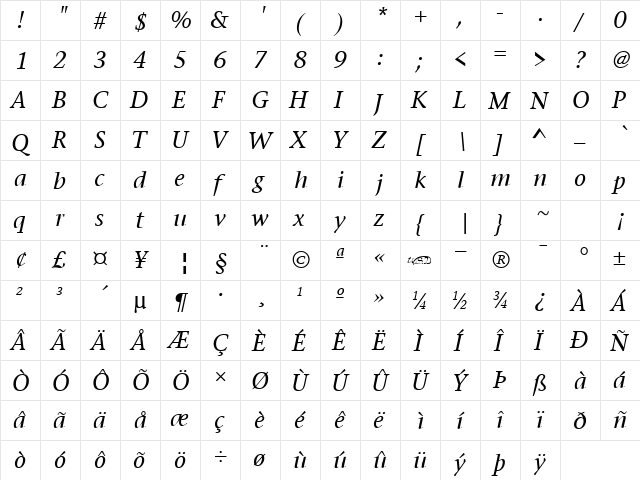
Prudential kursiv
Design Context for Prudential Typeface
Prudential is a composed and adaptable typeface that performs quietly and consistently across a wide range of design contexts. The dynamic lean of this cut emphasises speed and emphasis in any layout.
Pro Tip: Use Prudential for emphasis, pull quotes, and subheadings where its slanted energy can add rhythm to the layout.